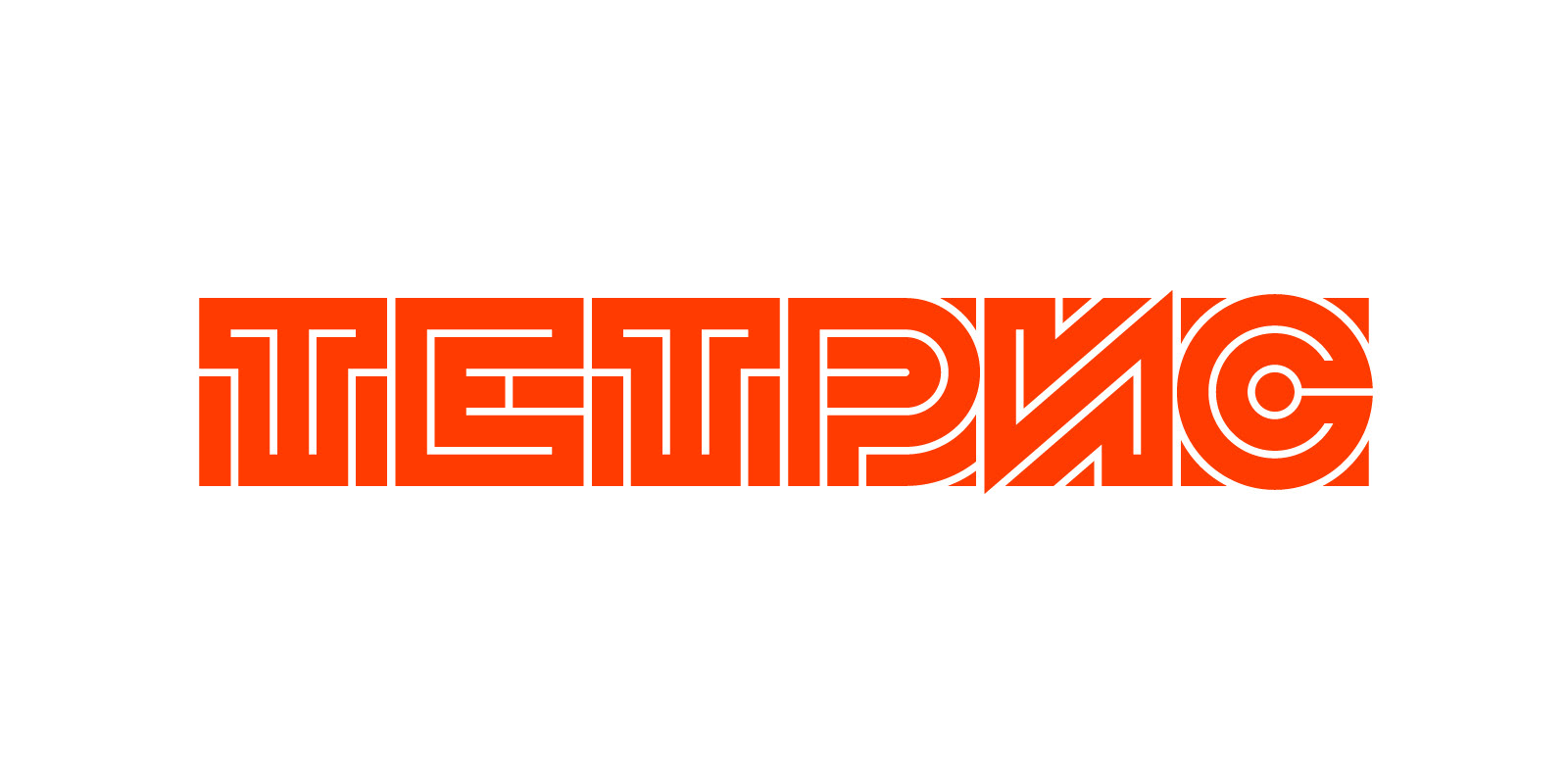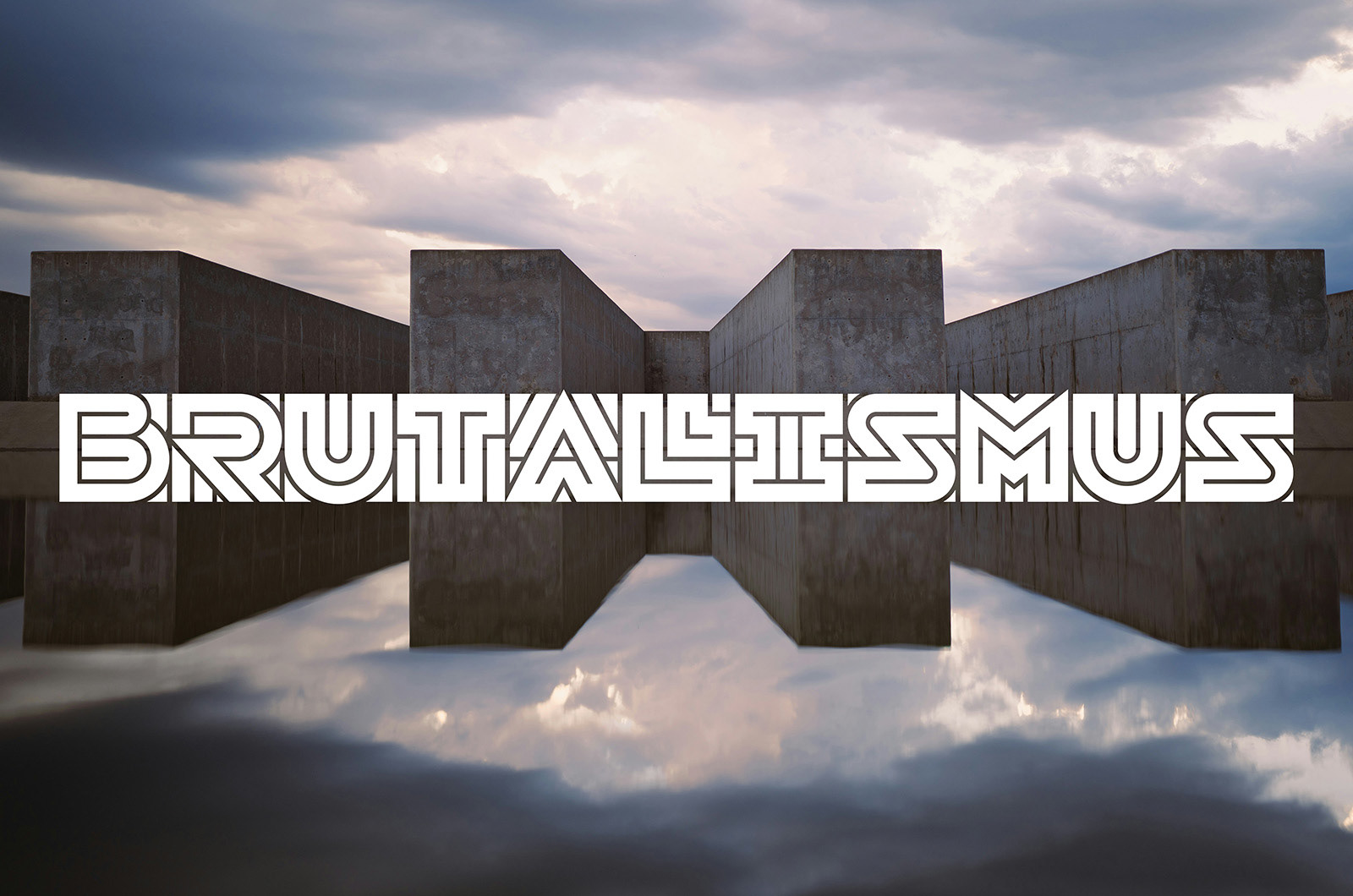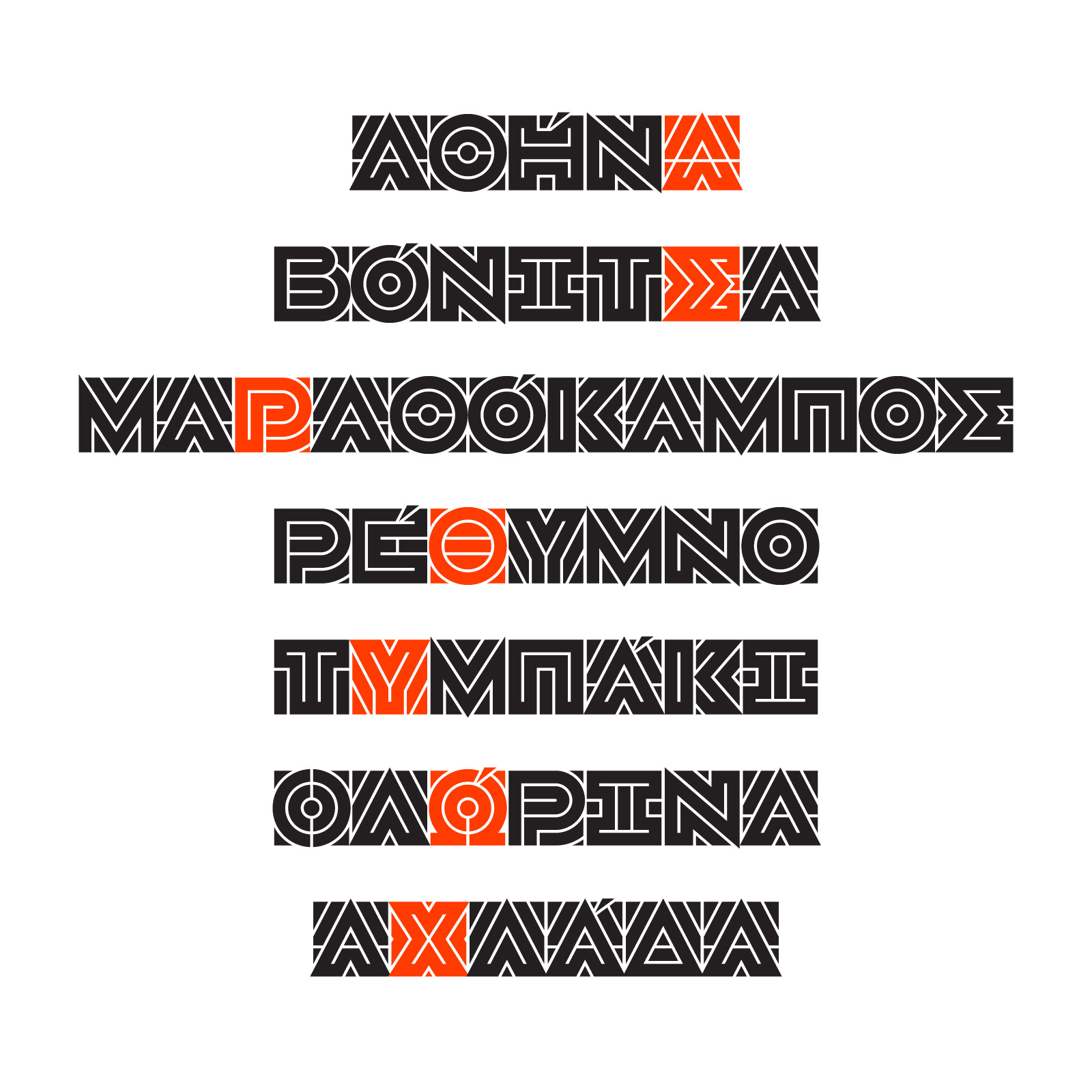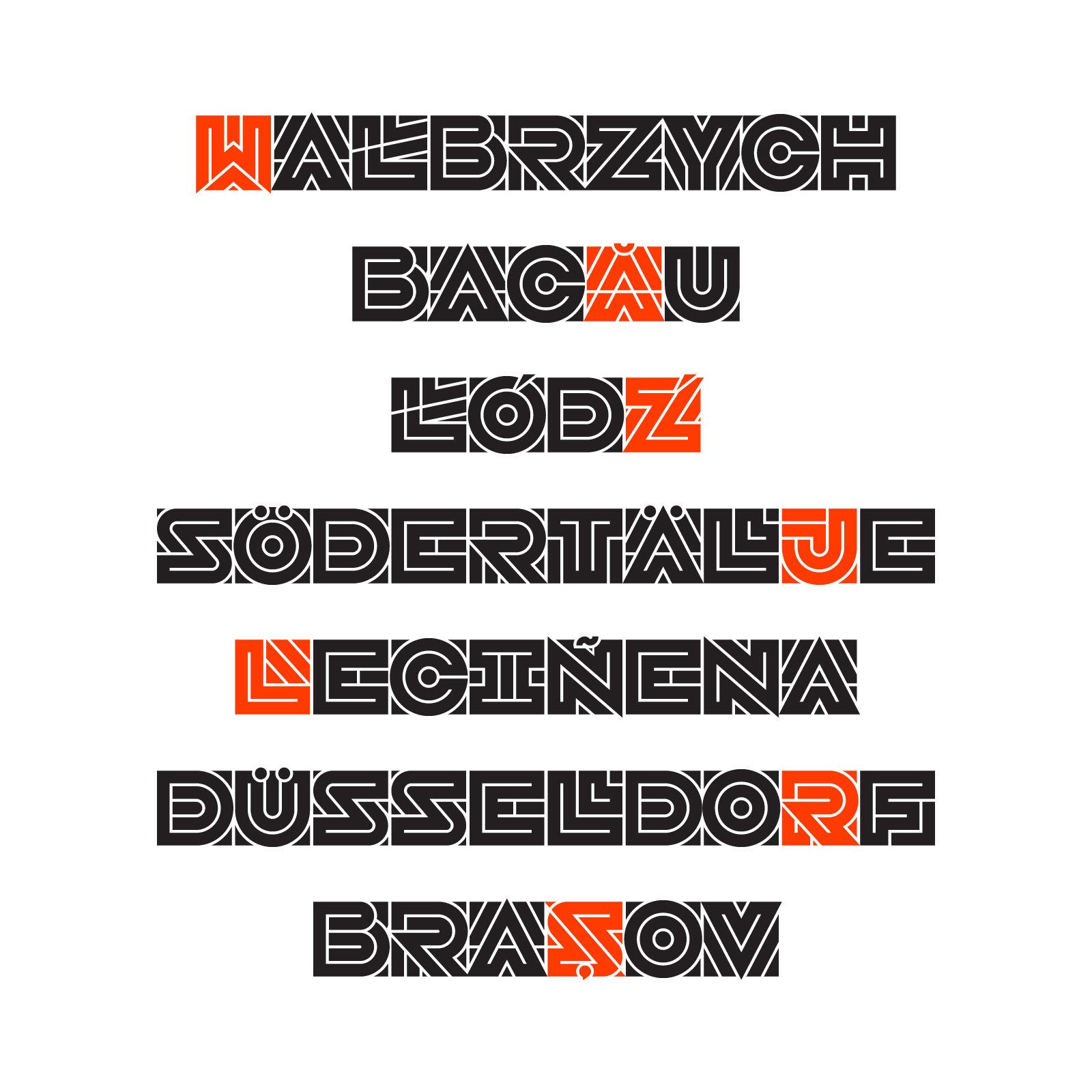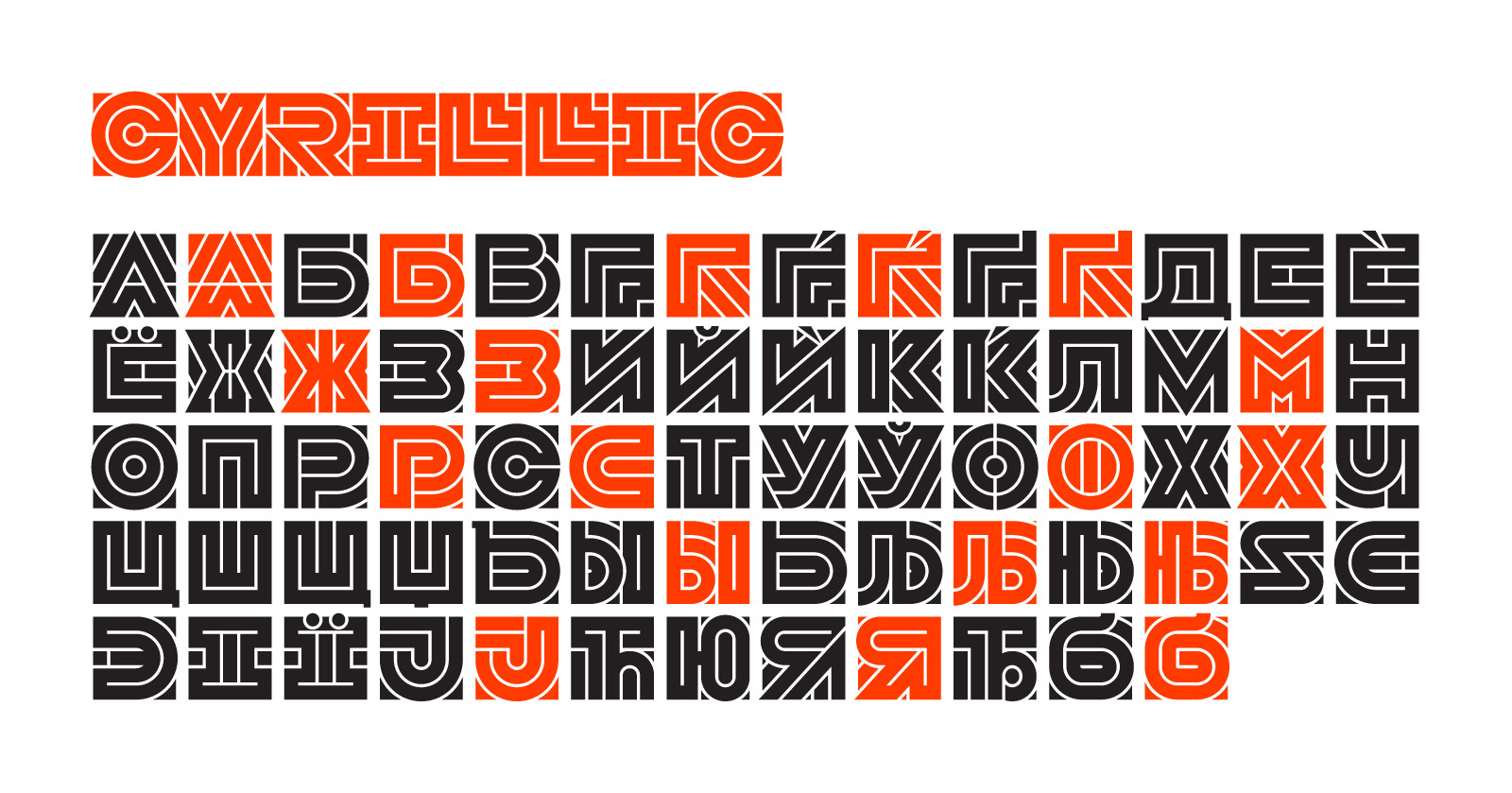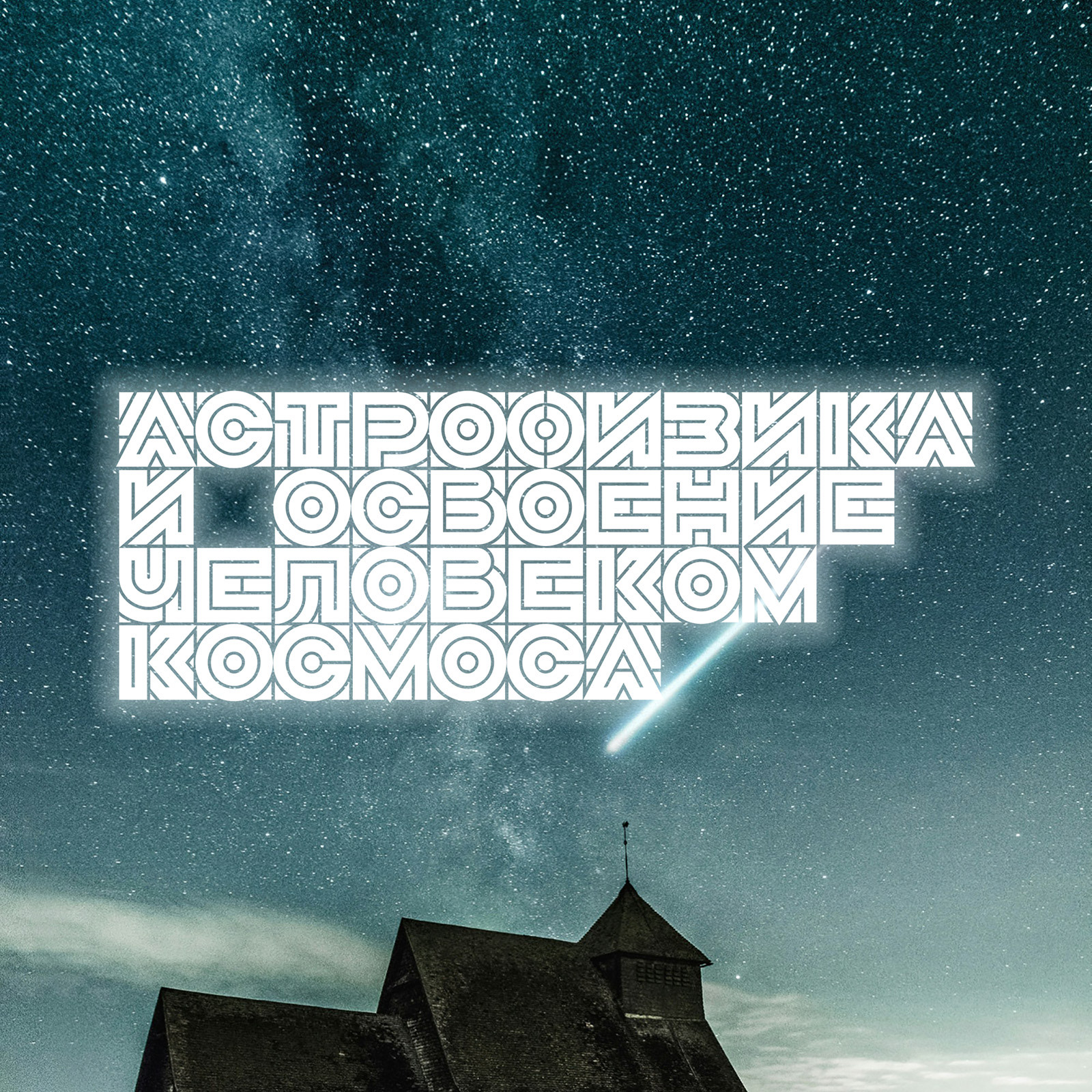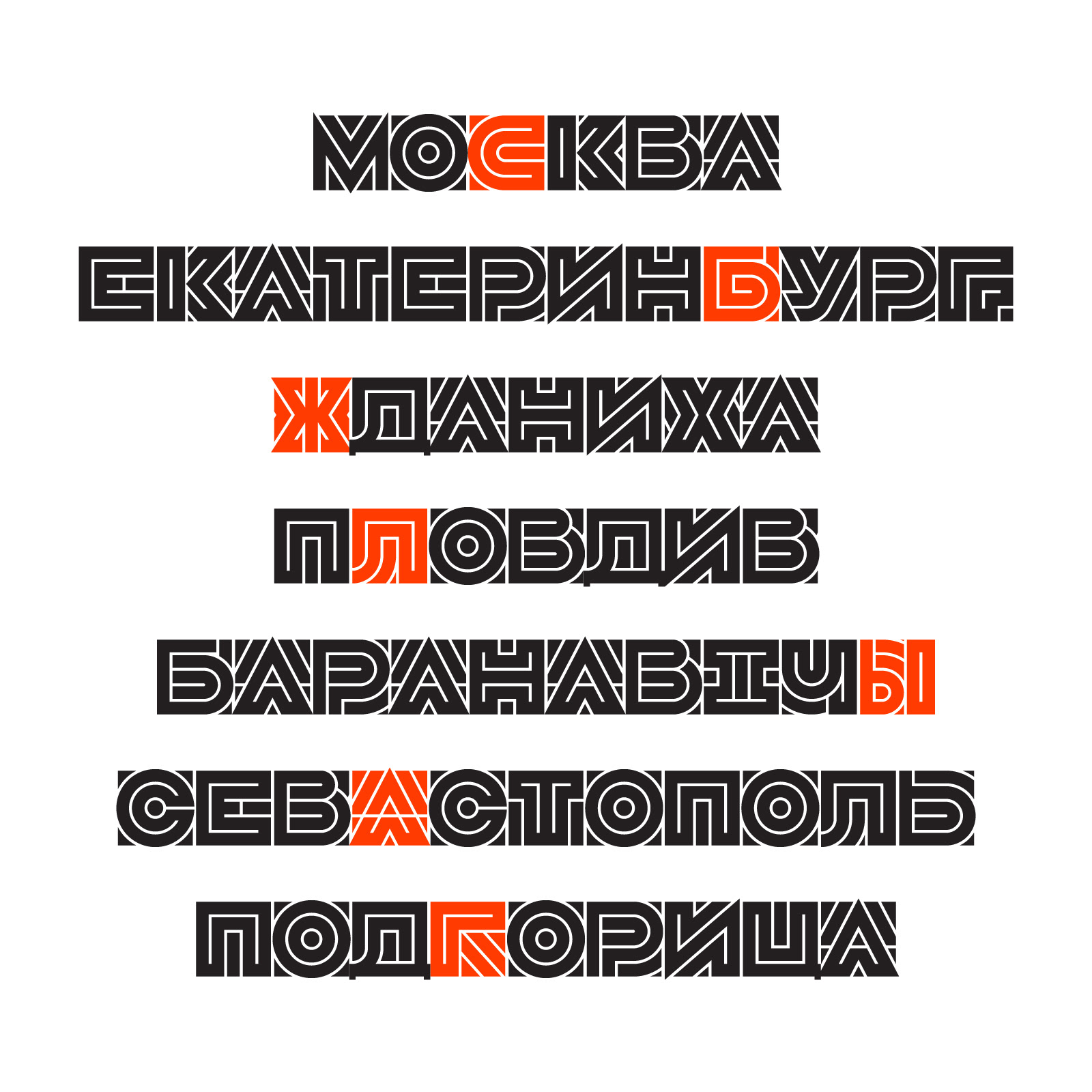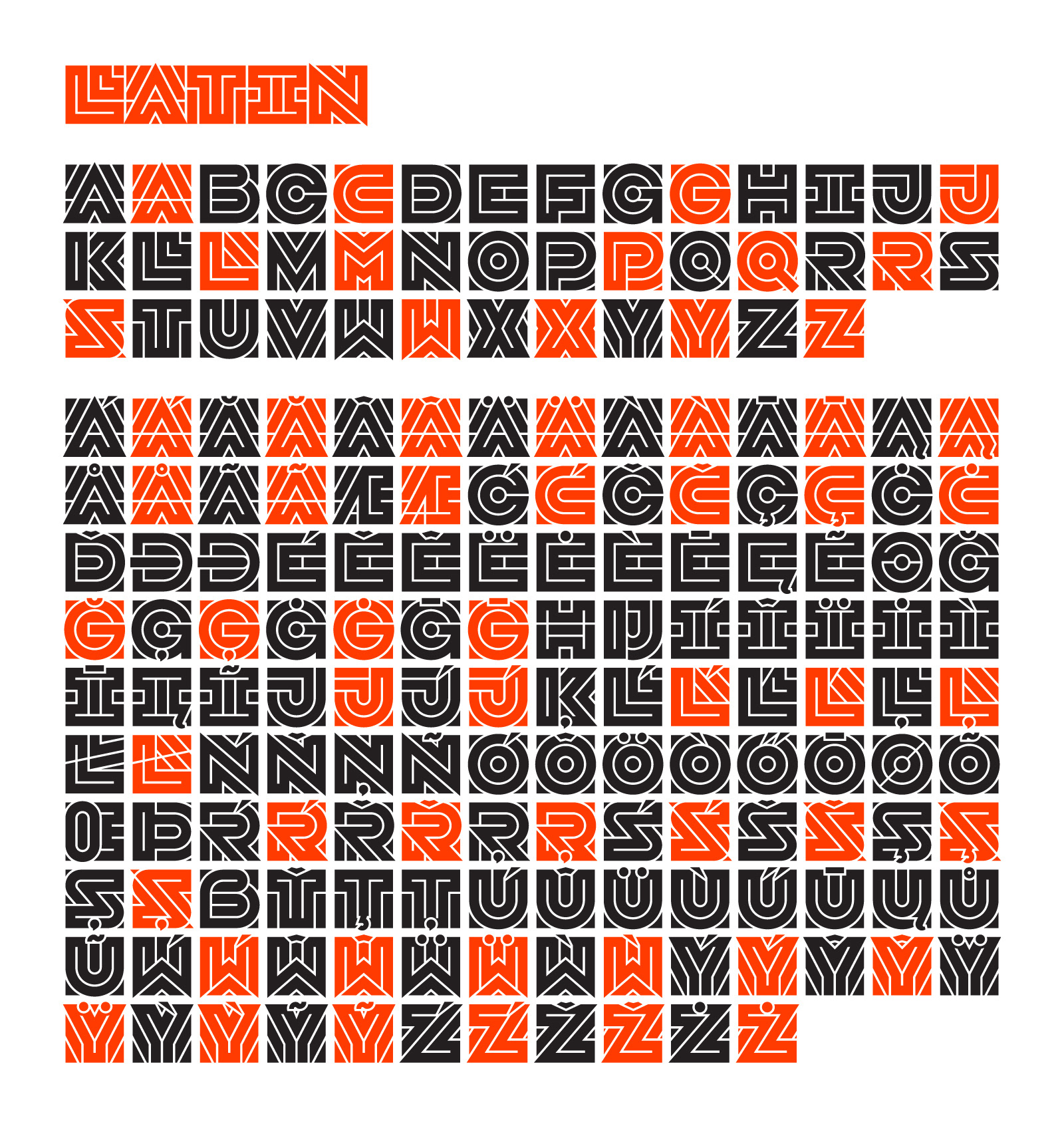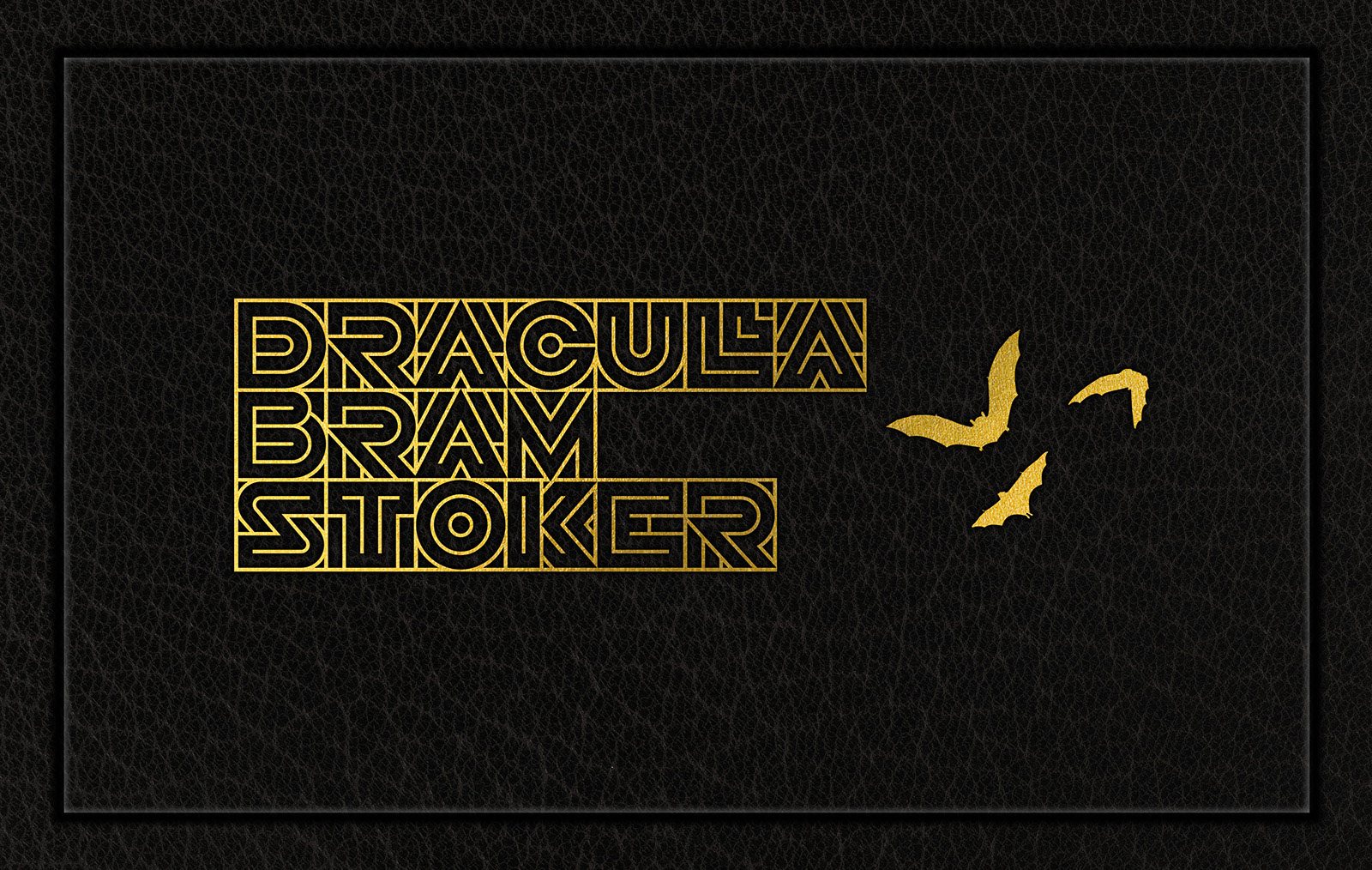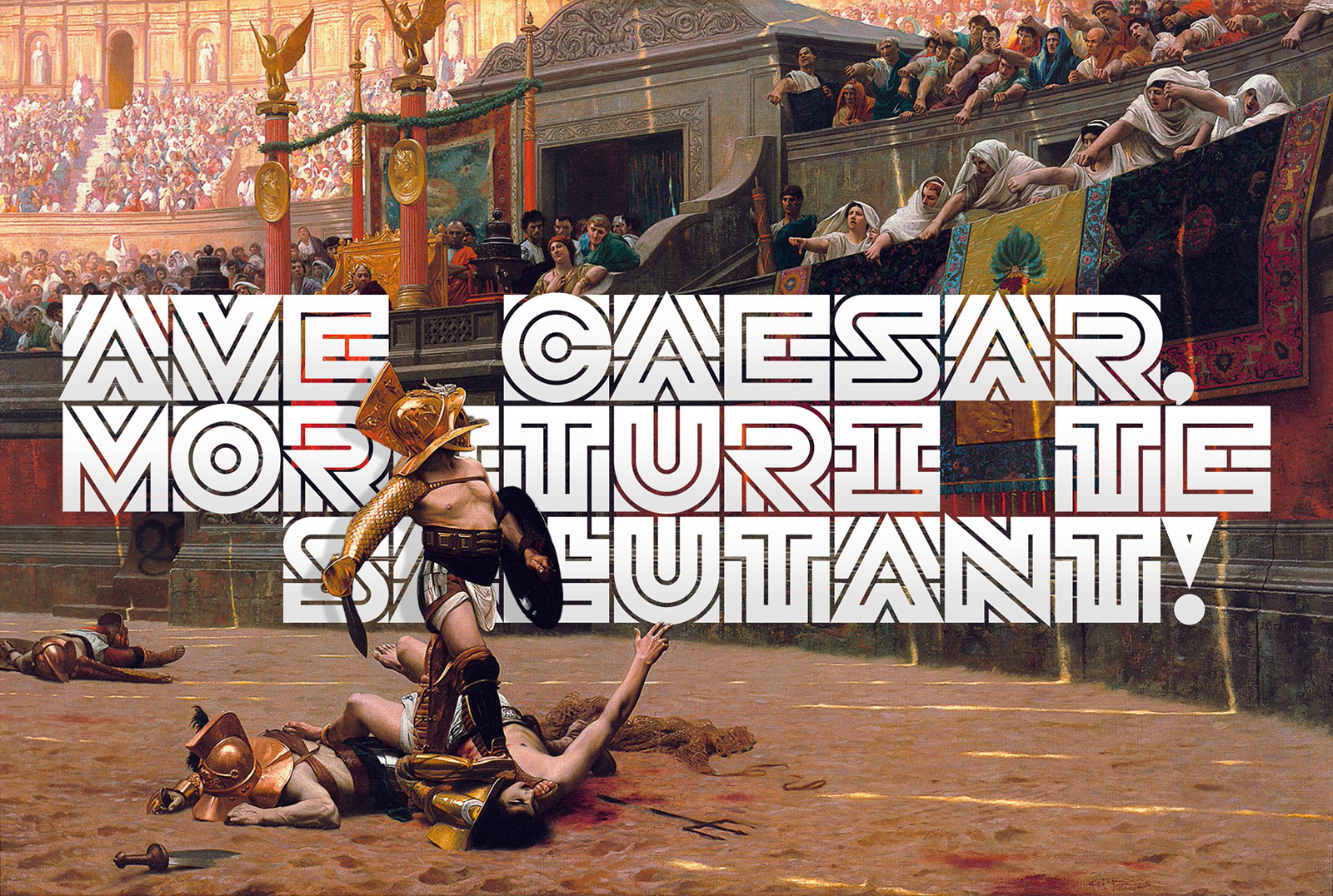
Monotile: any shape able to completely tile some space on its own.
Monotile is an experimental brutalist monospace display typeface designed to work seamlessly both horizontally and vertically. It works with Latin & Extended Latin, Cyrillic & Extended Cyrillic and Greek. It comes with 790+ glyphs, with more than one third of them being Stylistic Alternates. Ideal for titles and logos.
Latin (extended), primary glyphs and Stylistic Alternates.
Cyrillic (extended), primary glyphs and Stylistic Alternates.
Greek, primary glyphs and Stylistic Alternates.